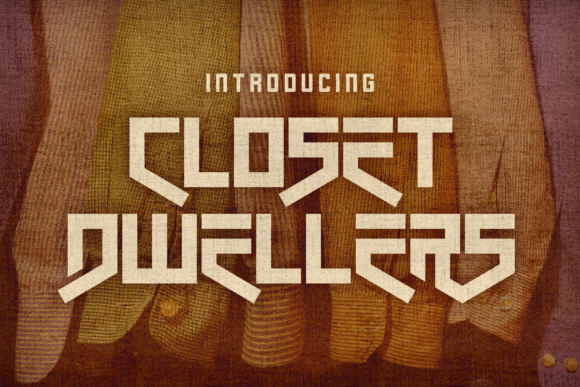
Introducing Closet Dwellers Font: A Unique Typeface for Creative Expression
Are you a designer, crafter, or DIY enthusiast looking for a font that can add a touch of personality to your projects? Look no further than Closet Dwellers, a one-of-a-kind typeface that is sure to make your creations stand out. In this article, we’ll take a closer look at Closet Dwellers and explore its features, uses, and benefits.
What is Closet Dwellers Font?
Closet Dwellers is a unique typeface designed to help you add a personal touch to your projects. Whether you’re creating a logo, crafting a handmade card, or designing a website, this font is sure to make a statement. Its distinctive style and charm make it perfect for a wide range of applications, from creative writing to branding and marketing materials.
Key Features of Closet Dwellers Font
So, what sets Closet Dwellers apart from other fonts? Here are some of its key features:
- Unique Design: Closet Dwellers boasts a distinctive design that is sure to grab attention. Its letters are carefully crafted to create a sense of whimsy and playfulness.
- Versatility: This font can be used for a wide range of purposes, from digital projects to print materials.
- Easy to Read: Despite its unique design, Closet Dwellers is easy to read, making it perfect for body text and headlines.
- Customizable: You can customize the font to suit your needs, adjusting the size, color, and style to fit your project’s requirements.
Uses of Closet Dwellers Font
So, how can you use Closet Dwellers in your projects? Here are some ideas to get you started:
- Branding and Marketing: Use Closet Dwellers to create eye-catching logos, business cards, and marketing materials that reflect your brand’s personality.
- Handmade Crafts: Add a personal touch to your handmade crafts, such as cards, gift tags, and scrapbook pages.
- Digital Projects: Use Closet Dwellers in your digital projects, such as website designs, social media graphics, and email newsletters.
- Creative Writing: Add a touch of whimsy to your creative writing projects, such as poetry, short stories, and novels.
Benefits of Using Closet Dwellers Font
So, why should you choose Closet Dwellers for your projects? Here are some benefits to consider:
- Stand Out from the Crowd: With Closet Dwellers, you can create projects that stand out from the crowd and grab attention.
- Personal Touch: This font adds a personal touch to your projects, making them more relatable and engaging.
- Flexibility: Closet Dwellers can be used for a wide range of purposes, making it a versatile addition to your font collection.
- Easy to Use: This font is easy to use, even for those who are new to design and crafting.
| Font Name | Closet Dwellers Font |
| Author | Chequered Ink |
In conclusion, Closet Dwellers is a unique typeface that can add a touch of personality to your projects. With its distinctive design, versatility, and ease of use, it’s perfect for designers, crafters, and DIY enthusiasts. Whether you’re creating branding materials, handmade crafts, or digital projects, Closet Dwellers is sure to make a statement. So why not give it a try and see the difference it can make in your creative endeavors?